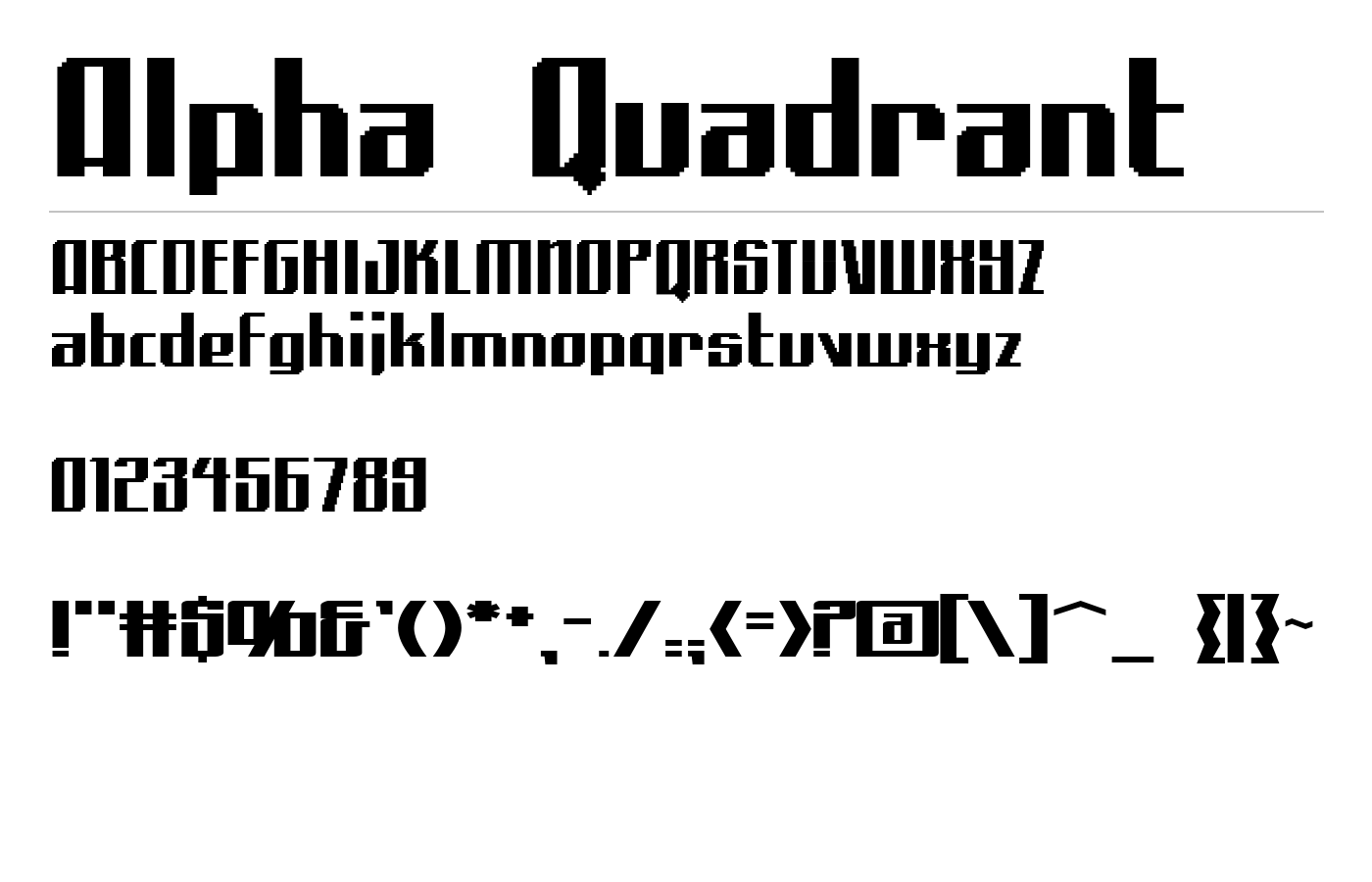
Alpha Quadrant is a bold, condensed sans serif font with a strong geometric and blocky style that evokes a digital or pixelated aesthetic. Its sharp, rigid forms and uniform stroke weight give it a modern, technical feel, making it perfect for futuristic designs, tech branding, video games, and digital interfaces that seek a distinctive, edgy look. The font’s clear uppercase and lowercase structure ensures readability while maintaining a unique, commanding presence in headlines and display uses.
Alpha Quadrant Font